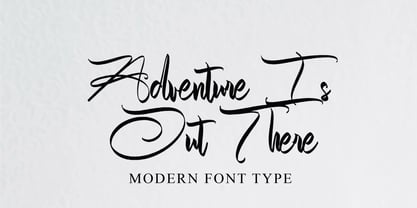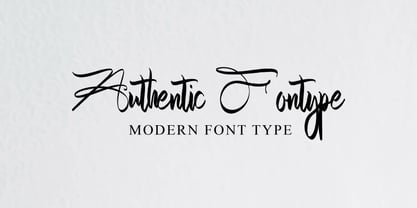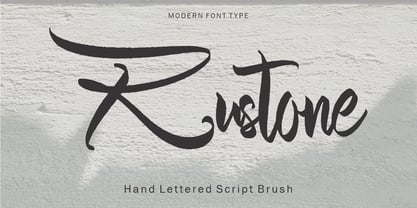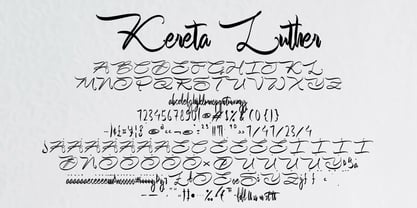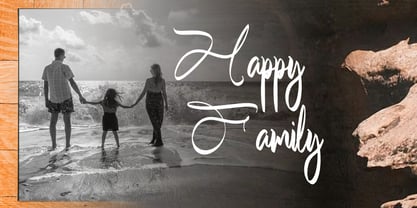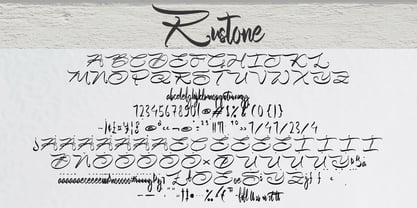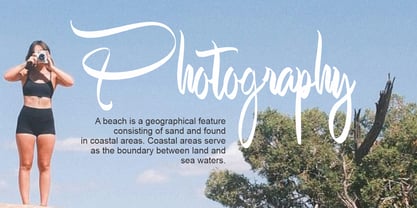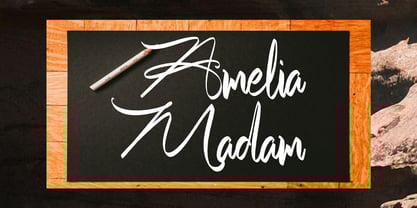
Rustone
by Gian Studio
The Rustone Font Family was designed by Yusliana M Isa and published by Gian Studio. Rustone contains 1 styles. More about this family
Rustone is an expressive handwritten font. With modern pen strokes, fun characters with little ligatures, alternate lowercase, and swashes. To give you more creative work. Rustone font supports multilingual. This font is good for logo design, social media, movie titles, book titles, short texts even long letter texts and good for your secondary text font with sans or serif. Create stunning work with Rustone font.
Designers: Yusliana M Isa
Foundry: Gian Studio